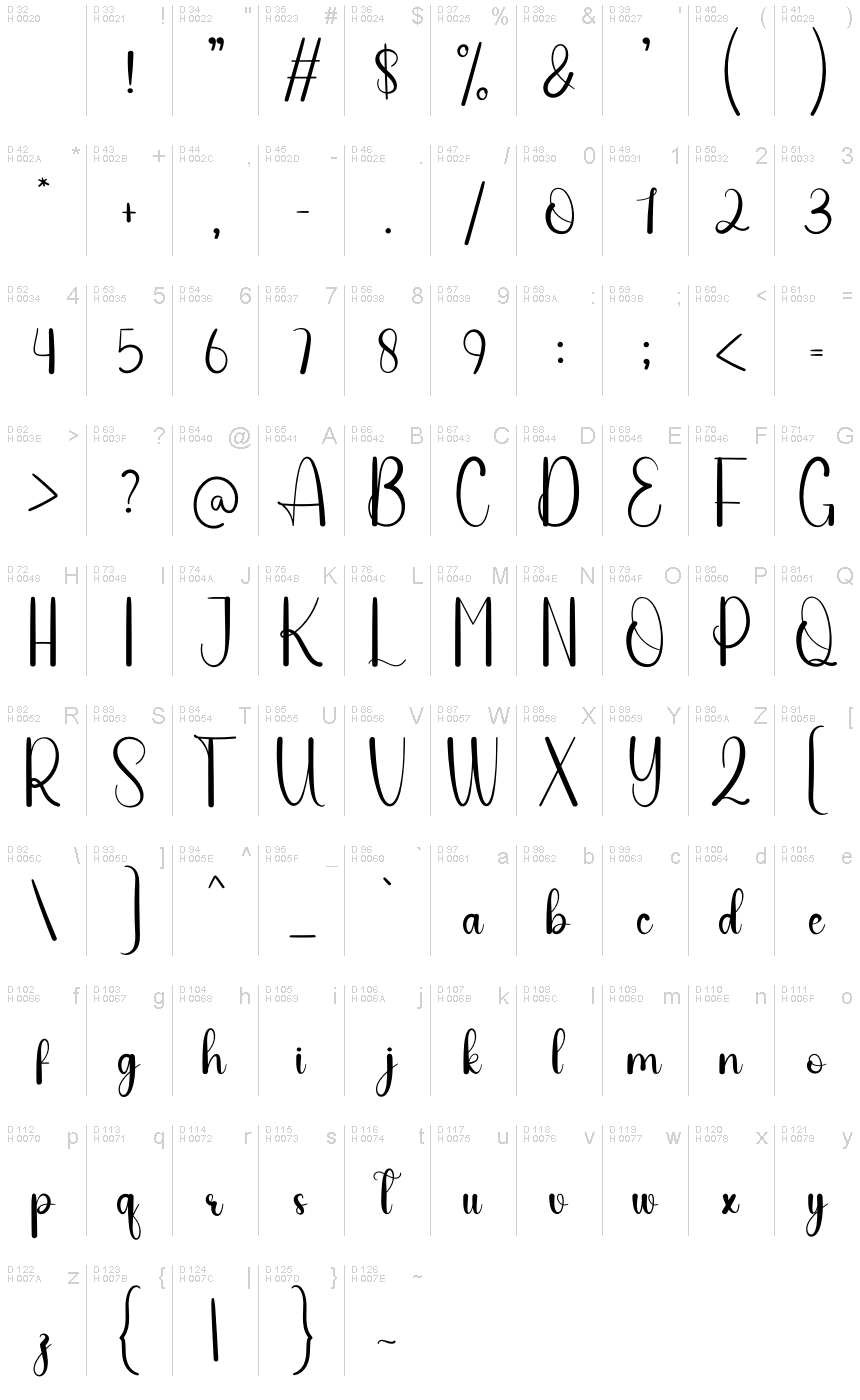
Weeded
Weeded is a captivating handwritten font that exudes a sense of organic fluidity and warmth. Crafted by designer Andi Moz, this font boasts distinctive, lively letterforms that imbue any text with a touch of artisanal charm. The varied stroke widths and playful ligatures create a signature handcrafted aesthetic, lending a sense of authenticity and personality to your designs.
Weeded's versatility shines, from elegant editorial layouts to whimsical branding, making it a valuable asset for designers seeking to infuse their work with a touch of authenticity and human touch.